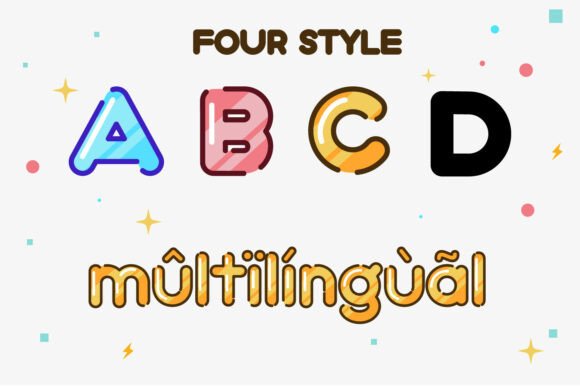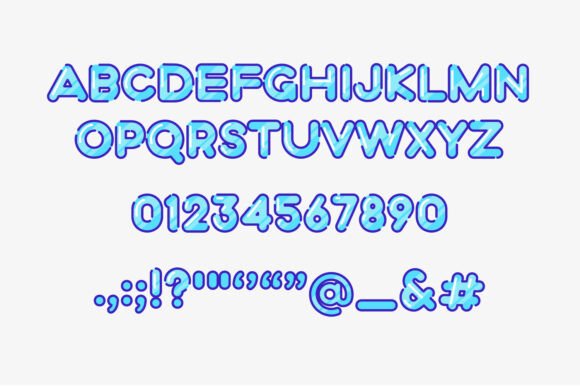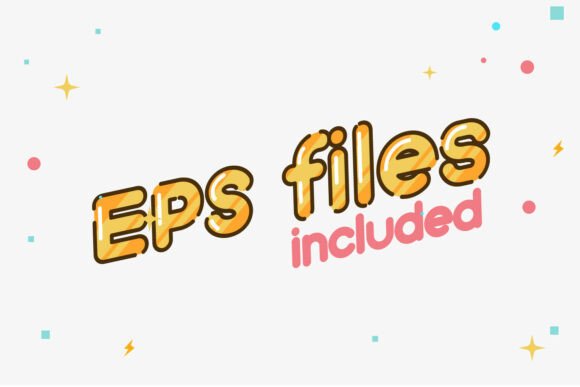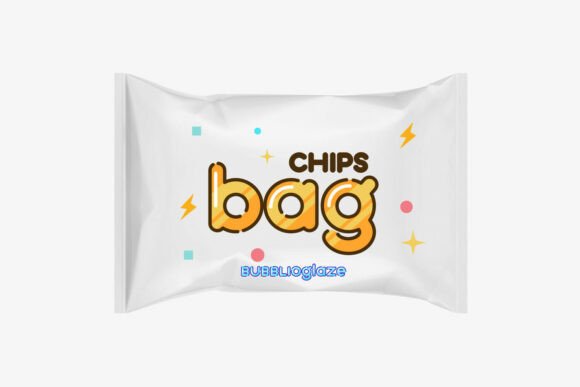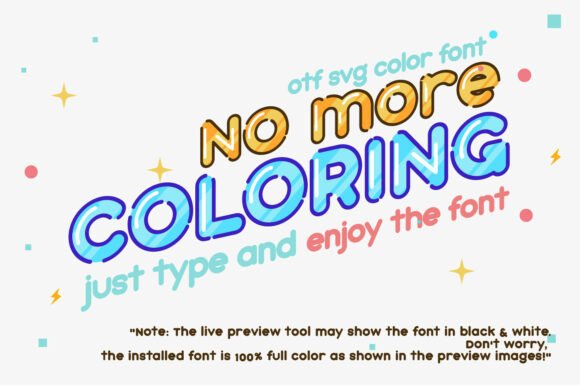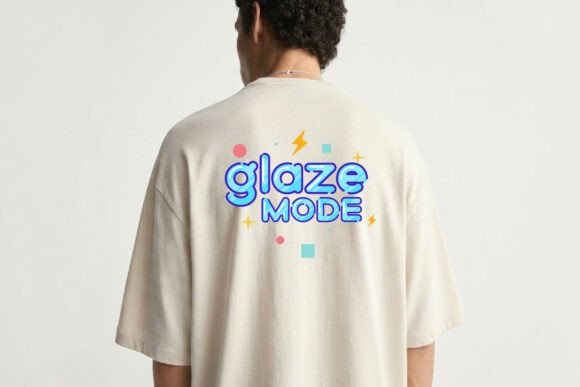
Discover the Playful Charm of Bubblio Glaze Font
Have you ever been in the middle of a design project, and suddenly, you’re stuck on finding the perfect font? I recall a recent experience where a client asked for a playful, modern look for their kids’ educational brand. The catch? It had to be fun, colorful, and instantly captivating. That’s when I stumbled upon Bubblio Glaze, a delightful bubble display font that instantly brought joy and personality to my designs.
A First Impression: What Makes Bubblio Glaze Special
Bubblio Glaze is more than just a font – it’s a design statement. With its soft rounded shapes, bold outlines, and sweet glaze-inspired style, it’s perfect for creative projects that demand a cheerful and standout look. Whether you’re working on branding, packaging, social media, or kids-related designs, this font delivers a modern and playful vibe that’s hard to resist.
Here’s what I love about Bubblio Glaze:
- ✨ Instantly playful and fun: The moment you start typing with Bubblio Glaze, you’ll notice its playful charm. It’s perfect for designs that need a cheerful boost.
- ✅ Highly versatile: From kids’ content to trendy branding, Bubblio Glaze adapts seamlessly to various design contexts.
- 💡 Easy to read: Despite its playful nature, the font remains clear and readable, even at smaller sizes.
And here are a few quirks to consider:
- 🤔 Limited use in formal contexts: Bubblio Glaze is undeniably playful, which might limit its use in more formal or professional designs.
- ⚠️ Requires attention to spacing: To maximize its impact, pay attention to letter spacing, especially when using it for longer texts.
The Story Behind Bubblio Glaze
Bubblio Glaze was inspired by the simple joys of childhood – think bubblegum, candy, and colorful glaze on sweet treats. The designer aimed to capture the whimsy and playfulness of these elements in a font that’s both fun and functional. The result is a font that instantly adds a cheerful touch to any design.
| Font Name | Bubblio Glaze Font |
| Author | Rashdrawn |
| What makes Bubblio Glaze unique? | Its soft rounded shapes, bold outlines, and sweet glaze-inspired style make it uniquely playful and eye-catching. |
| Is Bubblio Glaze suitable for body text? | While it’s primarily designed for headlines and titles, Bubblio Glaze can be used for short body texts, especially in creative and kids-related content. |
| Does Bubblio Glaze support OpenType features? | Yes, Bubblio Glaze supports OpenType features, including ligatures and stylistic alternates, allowing for more customization. |
Bubblio Glaze is more than just a font – it’s a design companion that brings fun, color, and personality to your projects. With its playful charm and versatility, it’s an excellent choice for designers, crafters, and creative hobbyists looking to add a modern and cheerful touch to their designs.